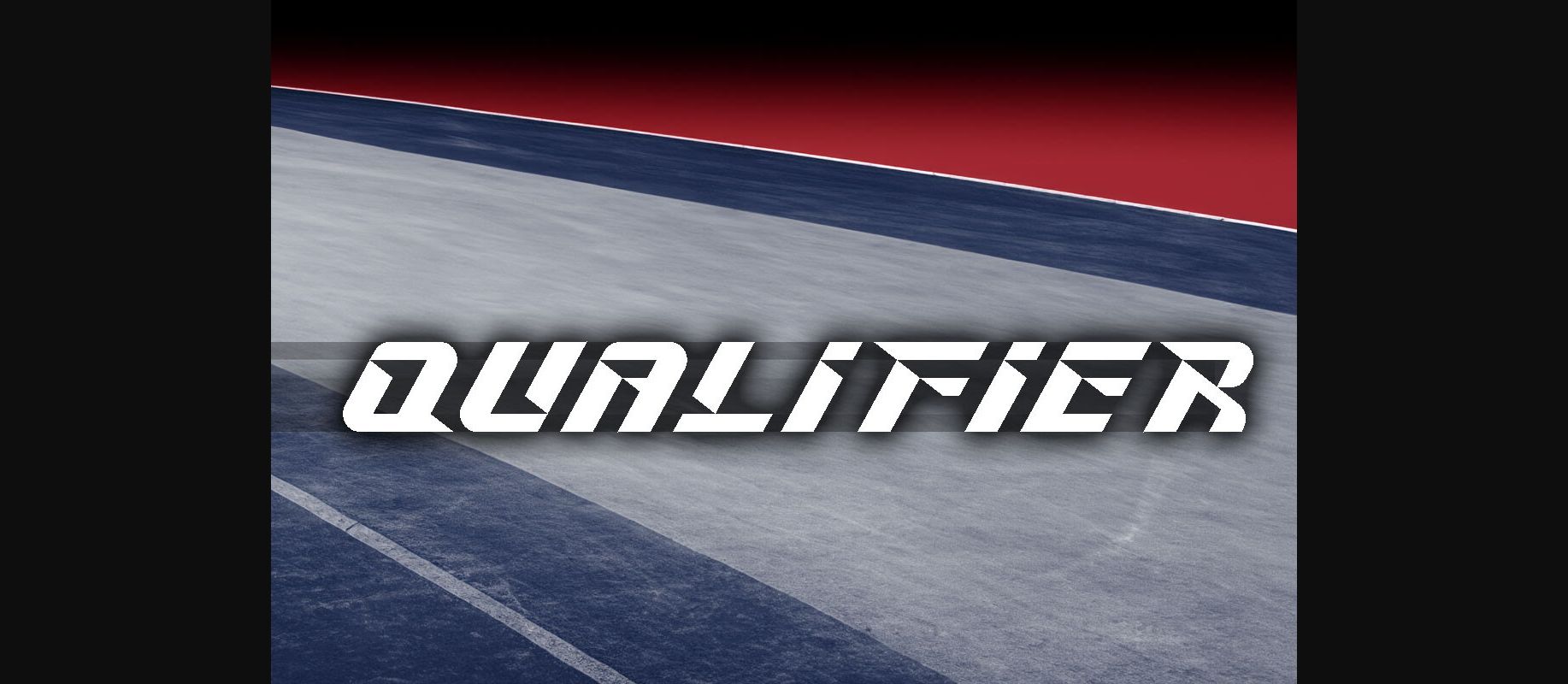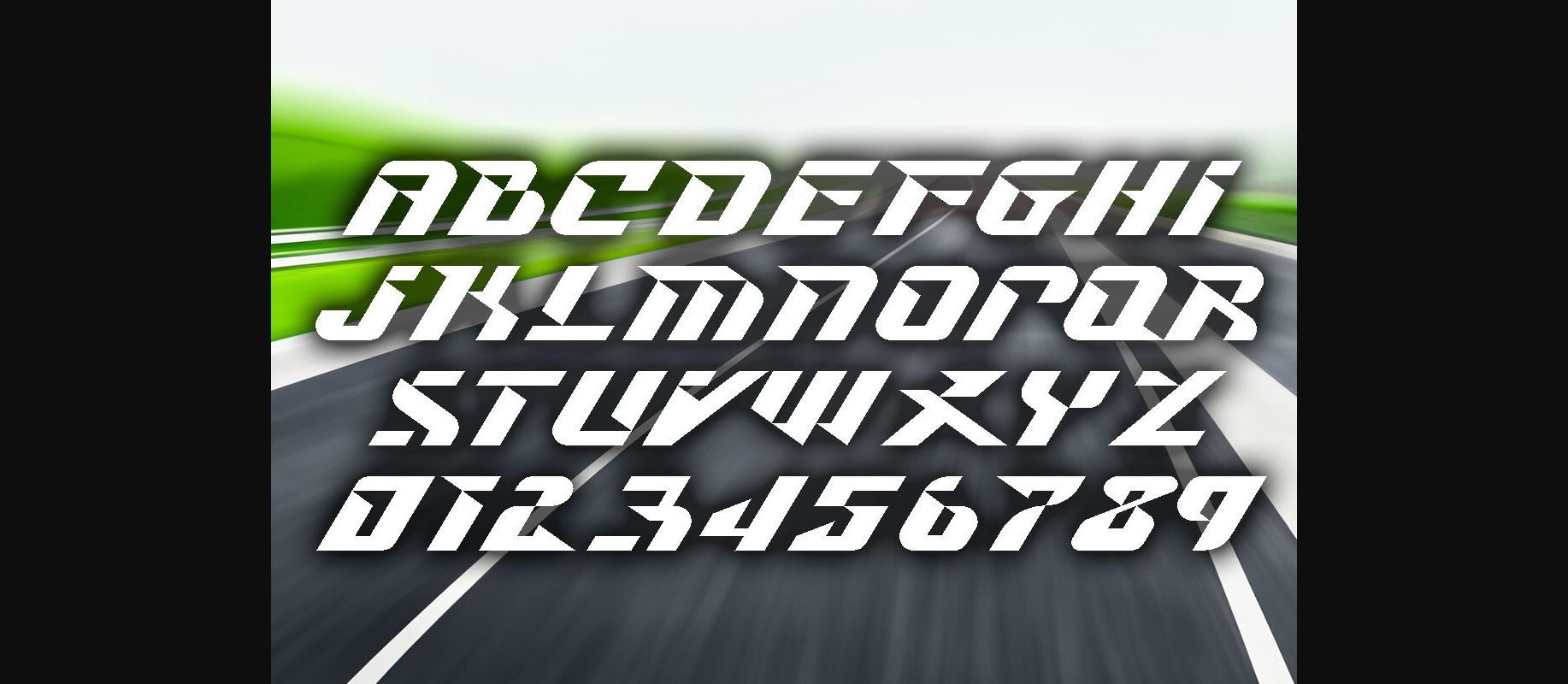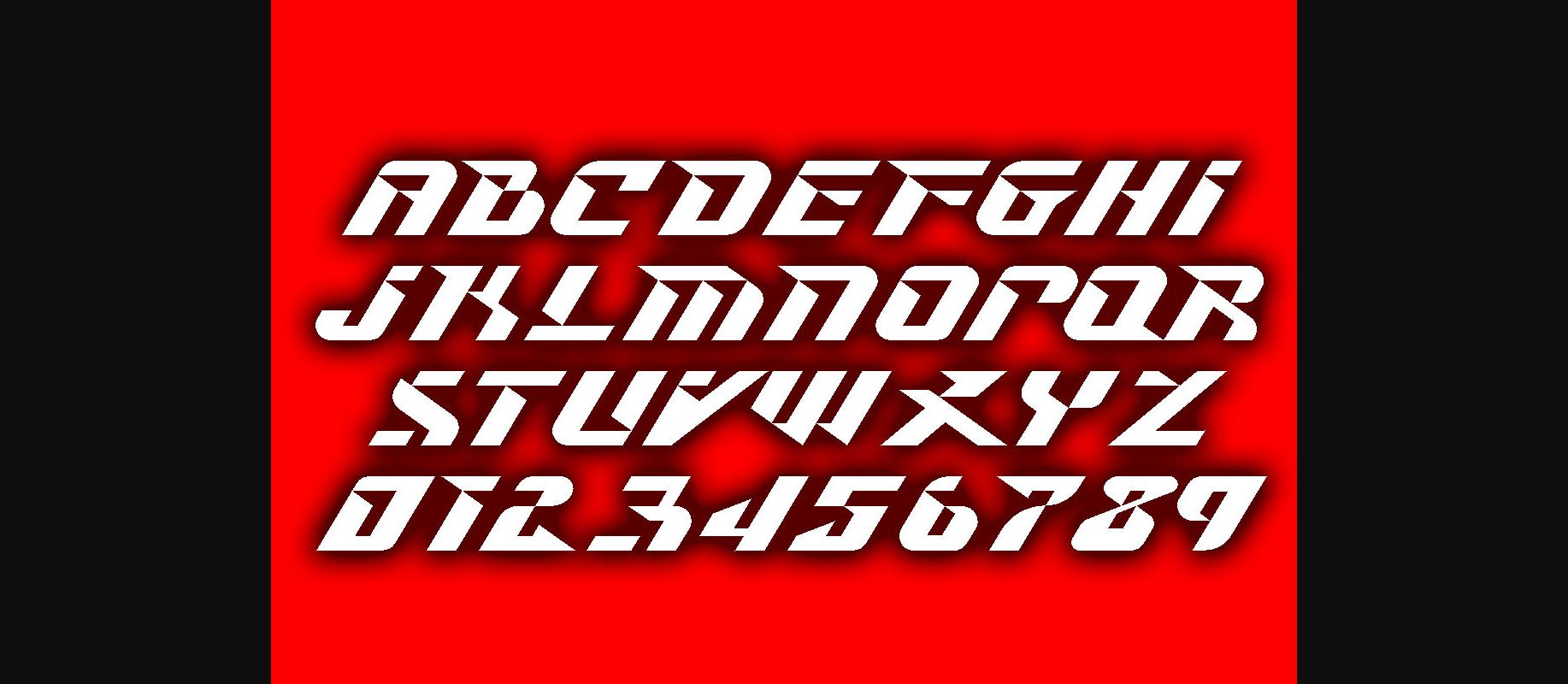
About Qualifier Font
Introducing Qualifier, an energetic, dynamic sports font that exudes the high-adrenaline rush of the race track. Whether you’re creating sports merchandise, sports-themed graphics, or anything that needs a dash of power and thrill, Qualifier stands as the first choice. Accelerate your creative visions with the raw intensity and unparalleled dynamism that the Qualifier font provides. All set and ready to go, it’s more than just a typeface – it’s an attitude, it’s an action, it’s a qualifier!